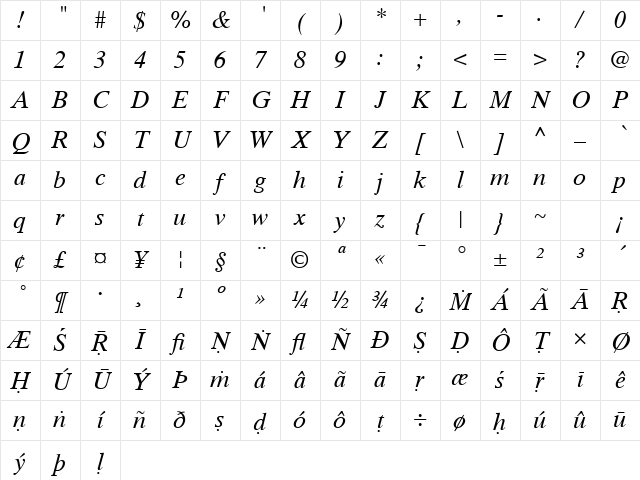
Tamal is a composed and adaptable typeface that performs quietly and consistently across a wide range of design contexts. The slanted form adds forward momentum and visual energy.
Pro Tip: Use Tamal for emphasis, pull quotes, and subheadings where its slanted energy can add rhythm to the layout.